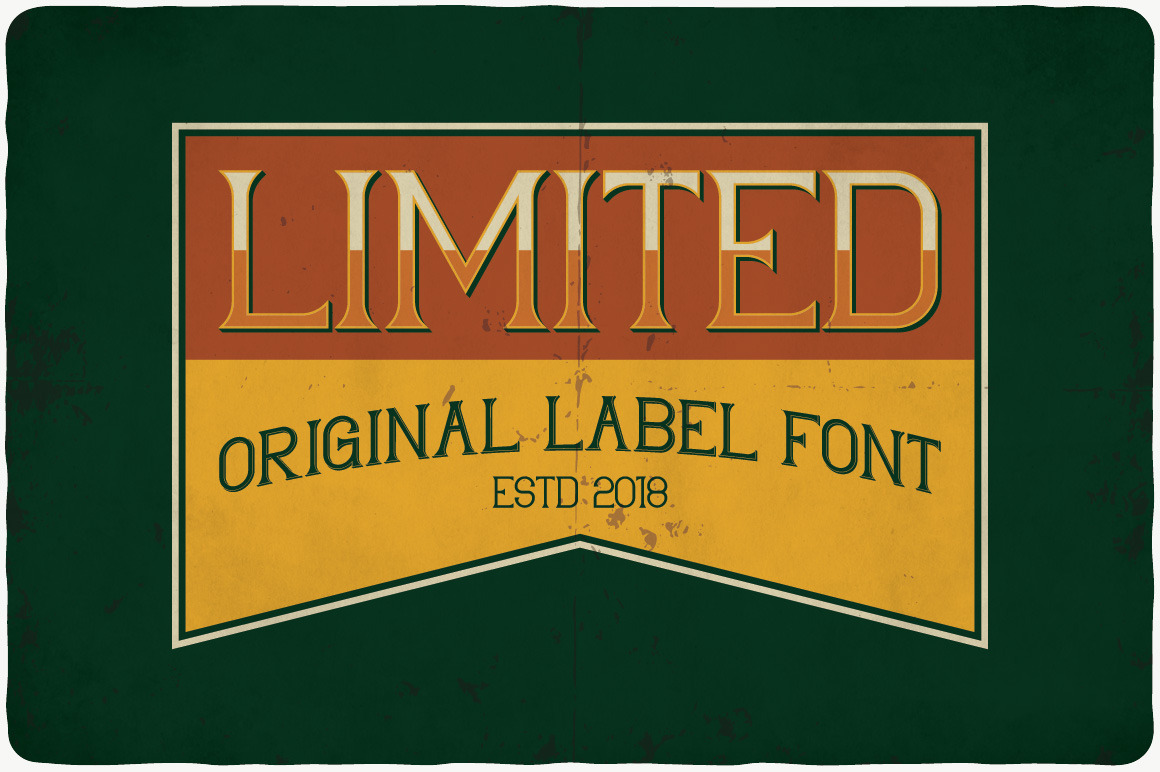
Limited typeface
Introducing a vintage look label typeface named "Limited". This typeface includes four styles, for sample look at 5th preview. Typeface will good viewed on any yours design.